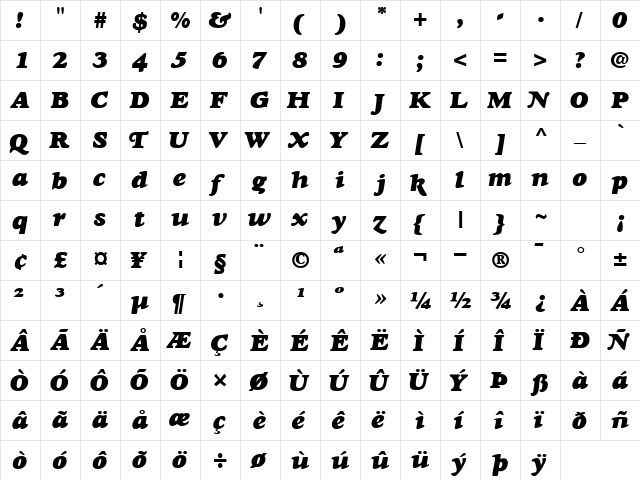
GoudyBlackSSK Bold Italic
Design Context for GoudyBlackSSK Typeface
GoudyBlackSSK is a composed and adaptable typeface that performs quietly and consistently across a wide range of design contexts. The slanted form adds forward momentum and visual energy. The heavy weight commands attention and anchors typographic hierarchies.
Pro Tip: Use GoudyBlackSSK for emphasis, pull quotes, and subheadings where its slanted energy can add rhythm to the layout.